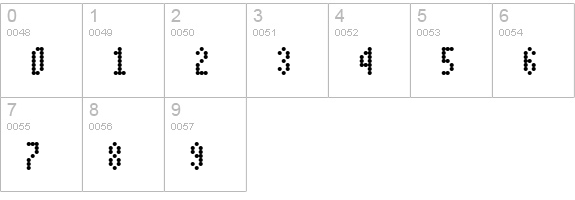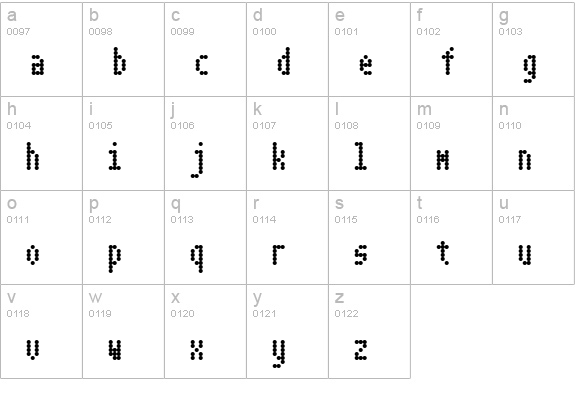
Dotimatrix 3 Font Details
Dotimatrix 3 is a stylish and modern font that combines the classic elegance of a dot matrix design with a sleek and contemporary twist. This font is perfect for a wide range of creative projects, from branding to packaging to digital artwork. With its clean lines and unique geometric shapes, Dotimatrix 3 is sure to make your designs stand out. The best part about Dotimatrix 3 is that it is completely free to download at FontsMarket.com. This means that you can easily access this high-quality font without breaking the bank. Whether you're a professional designer or a hobbyist looking to add some flair to your projects, Dotimatrix 3 is the perfect choice for creating eye-catching and memorable designs. Download it today and unleash your creativity with this versatile and modern font.